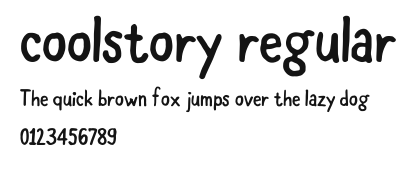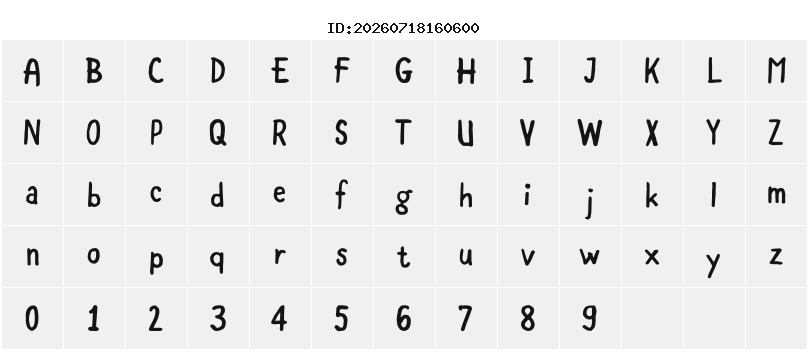
coolstory regular Preview
• Font Name: coolstory regular
• Font ID: coolstory regular:Version 1.00
• Full Font Name: coolstory regular
• Version: Version 1.00 December 2, 2014, initial release
• PostScript Name: coolstoryregular
• Character Count: 90
• Designer: Cruzine
• Manufacturer: Cruzine
• Description: coolstory regular is a trademark of Cruzine.
About coolstory regular.otf
coolstory regular.otf is a modern, elegant sans-serif font designed for ultimate readability and visual harmony. Perfect for branding, headlines, web design, and print materials.